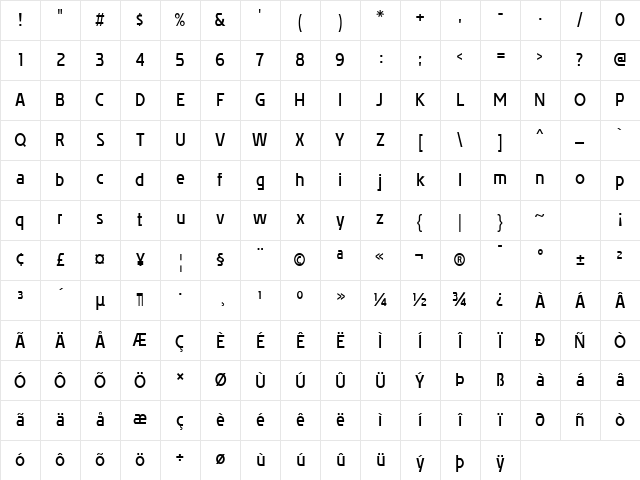
Affluent Demibold Regular Free Font
Affluent Demibold Regular
Design Context for Affluent Demibold
Affluent Demibold is a composed and adaptable typeface that performs quietly and consistently across a wide range of design contexts. Its bold stroke weight gives it real presence on the page.